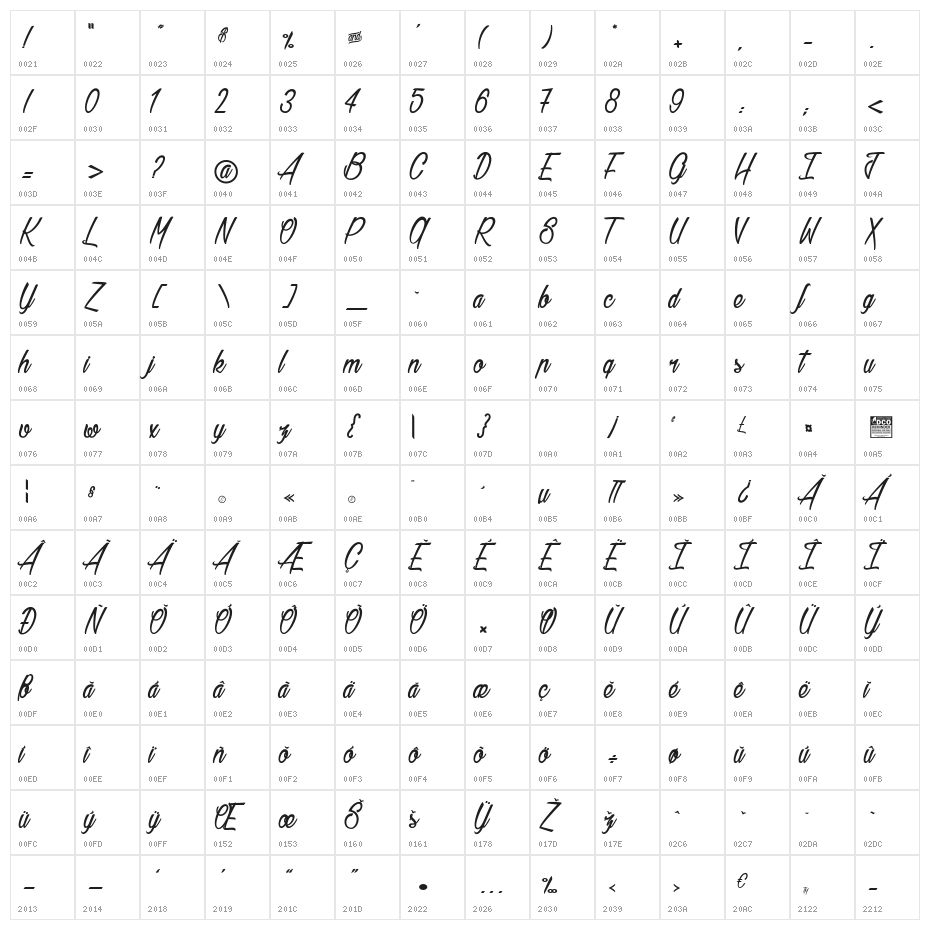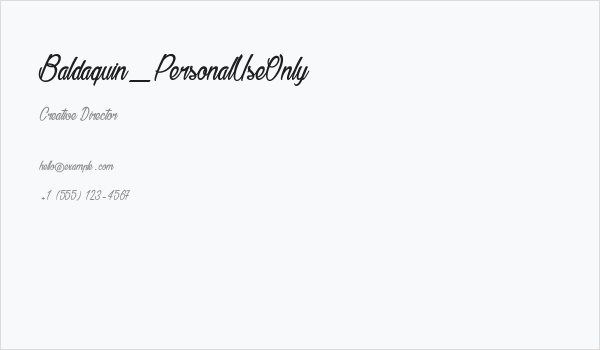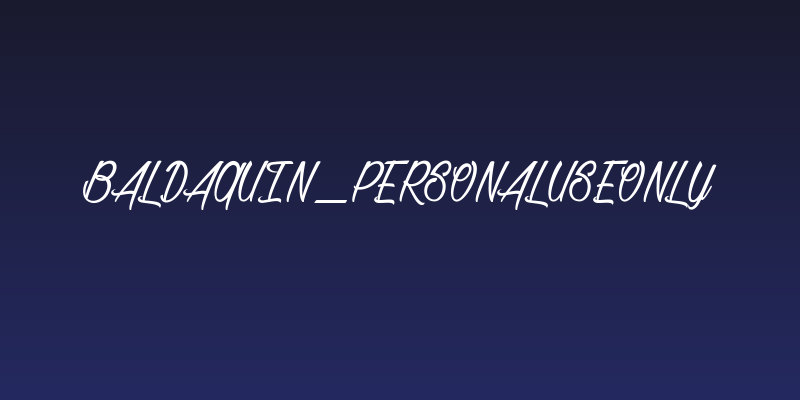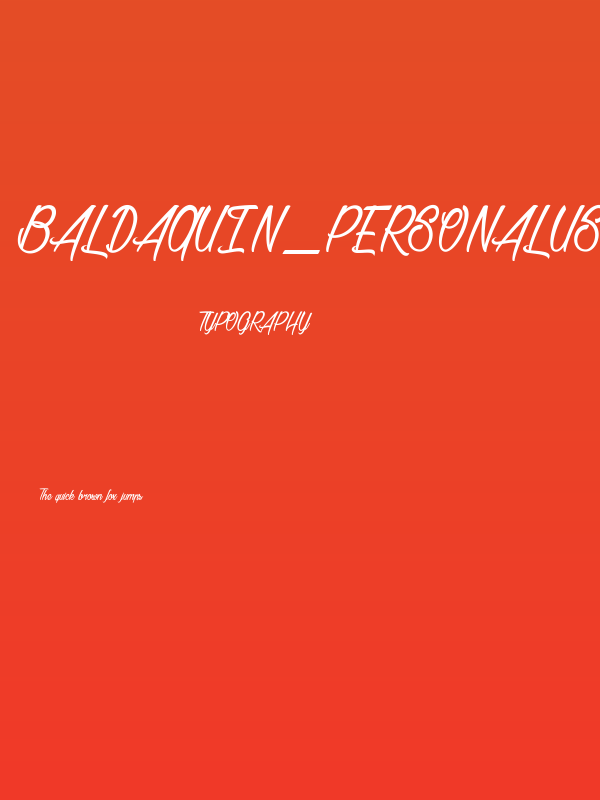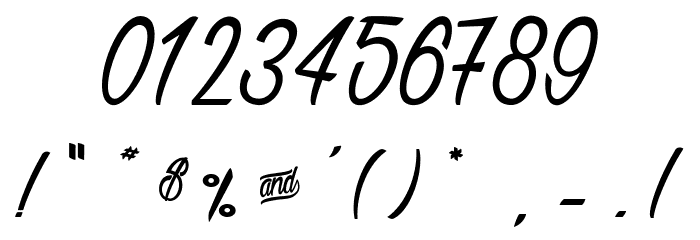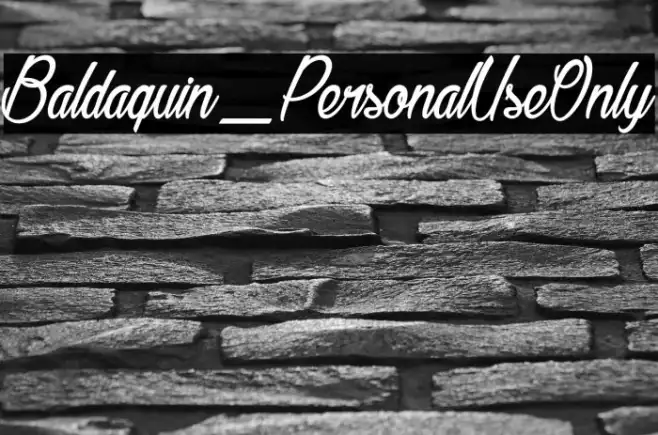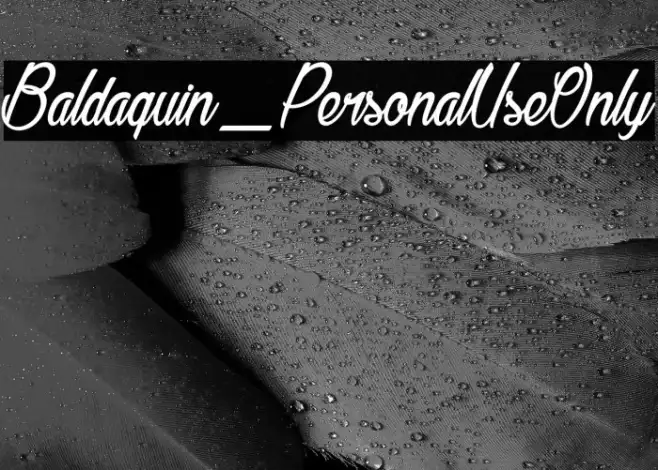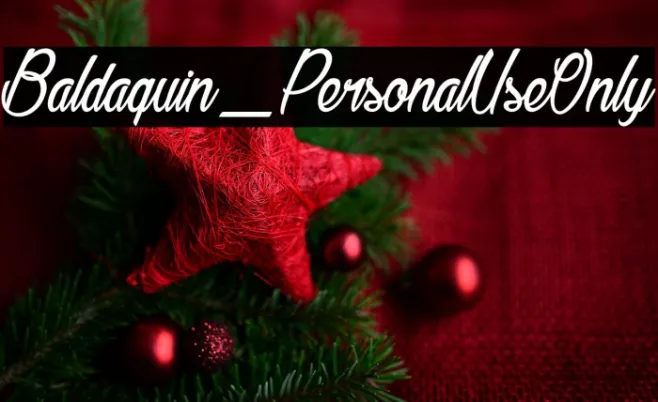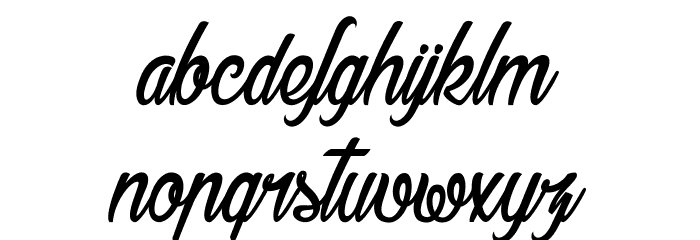
Baldaquin_PersonalUseOnly Font
Baldaquin_PersonalUseOnly Description
This font features a dynamic and flowing script style, characterized by its elegant and slightly slanted letterforms. The uppercase letters are tall and slender, with a graceful curve that adds a sense of movement. The lowercase letters maintain a consistent flow, enhancing readability while retaining a stylish flair. Numbers are designed with a similar fluidity, ensuring uniformity across all characters. Special characters are thoughtfully integrated, complementing the overall aesthetic. The font's design is both sophisticated and approachable, making it suitable for a variety of creative applications.
| Proposed Projects | Ideal for wedding invitations, branding projects, greeting cards, and elegant packaging designs. |